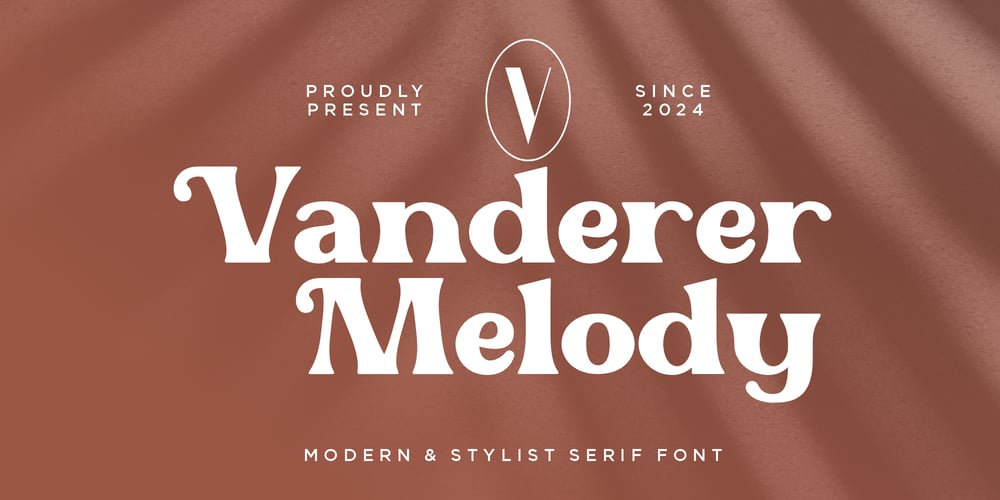
Vanderer Melody
Vanderer Melody font
Vanderer Melody Font Family was designed by Hunaiza Aljahsy and published by HunaizaAljahsy. Vanderer Melody contains 1 styles and family package options. Vanderer Melody is an elegant chique font.fragile is a serif font, This font is perfect for Bandin, logo design, wedding, quotes, magazing anything do you want. You will get classy, elegant, and certainly unique logos with this font.